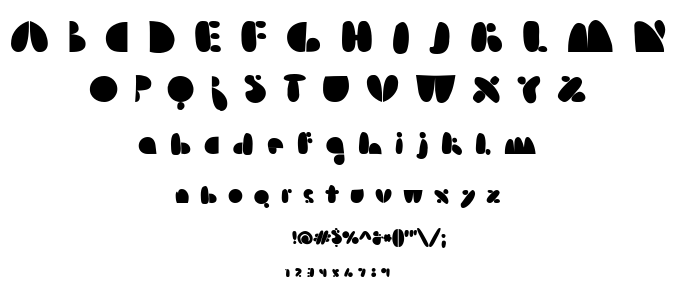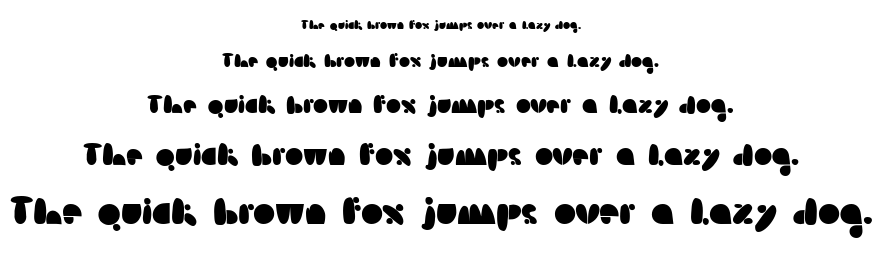
Arsenale blue is a soft rounded font born by the collaboration of different graphic designers. It is inspired by the lightness of clouds in groovy and fancy way and the military stancil fonts.